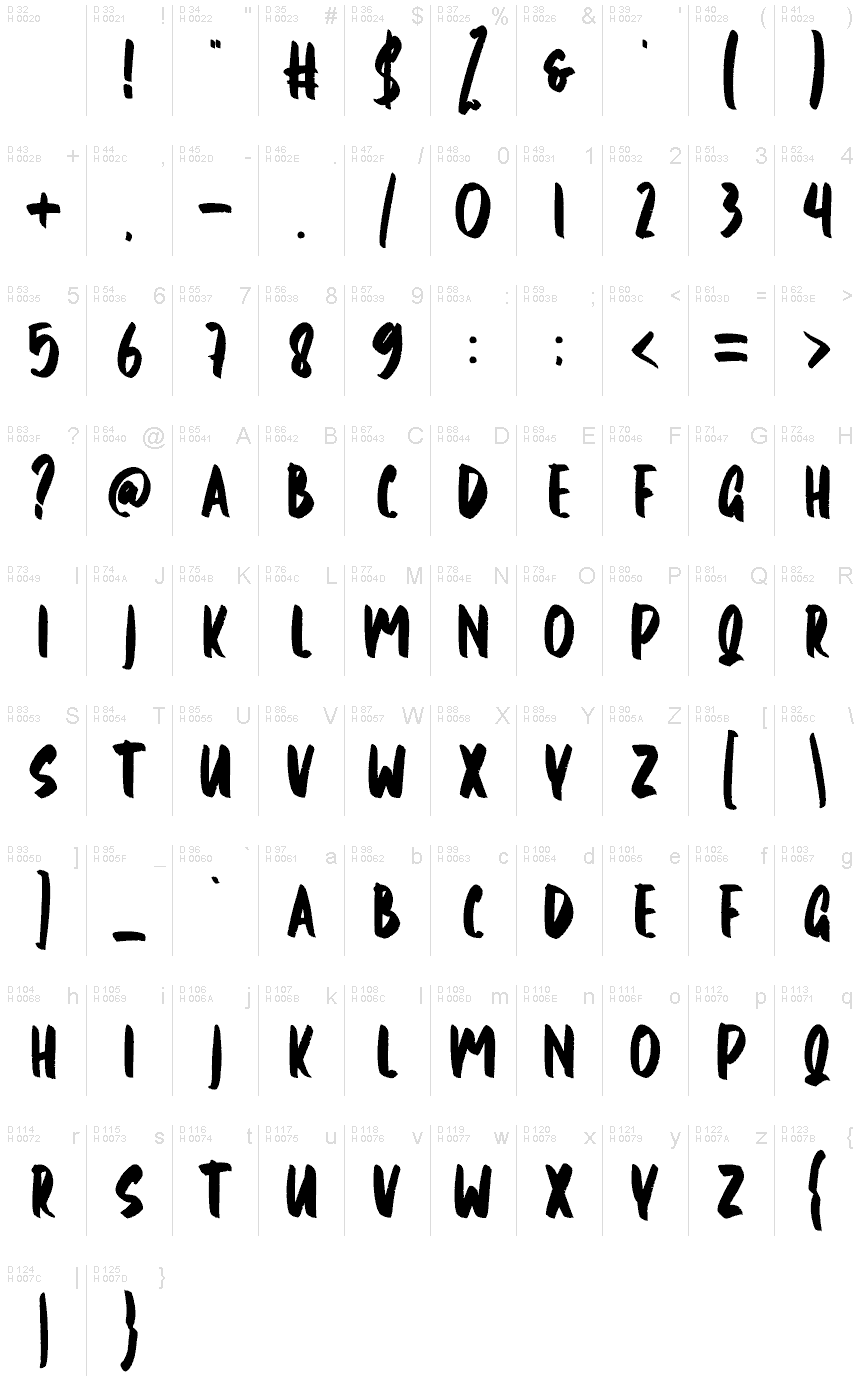
Zelius
Zelius font is a condensed brush typeface designed by Skiiller Studio. Inspired by handwriting, it has an expressive and energetic look with its brush texture in each of the characters. It’s bold, it’s nervous, and it plays to make your designs unique yet noticeable without effort. Use this gorgeous tool effectively and free up space for other design ideas that you want to integrate.
Zelius is an excellent choice for product packaging design on perfume, makeup packages, chocolate containers, restaurant menus or daily specials. Generally applicable in branding; logos and important headings on print and digital media such as magazines or websites.